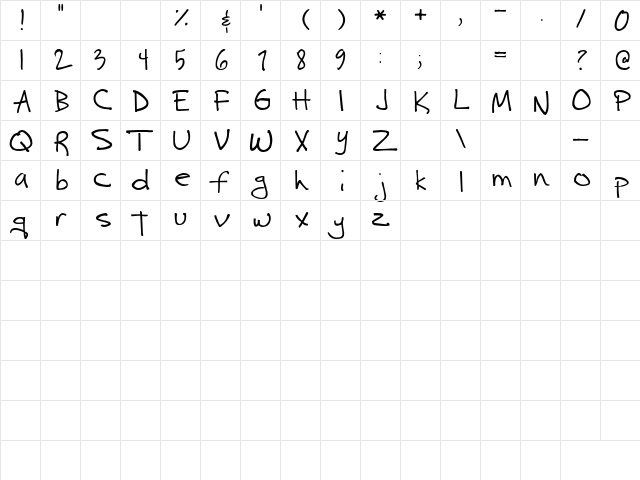
2Peas Busy Babs Regular
Design Context for 2Peas Busy Babs Typeface
2Peas Busy Babs is a composed and adaptable typeface that performs quietly and consistently across a wide range of design contexts.
Pro Tip: Use 2Peas Busy Babs in both headline and body roles to test its range before committing to a single application.